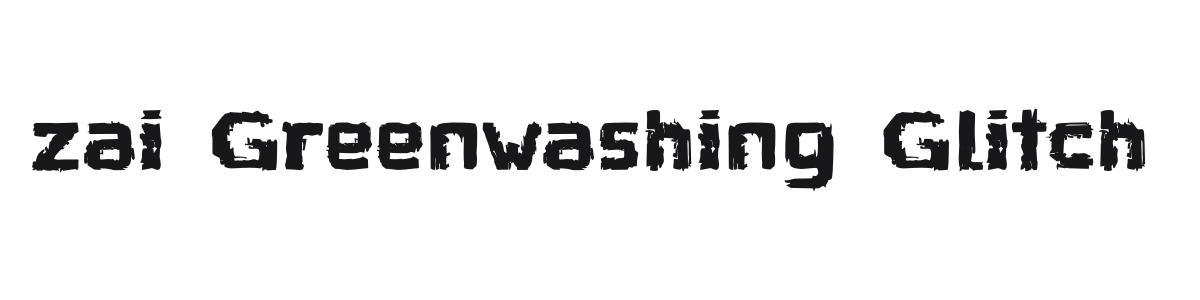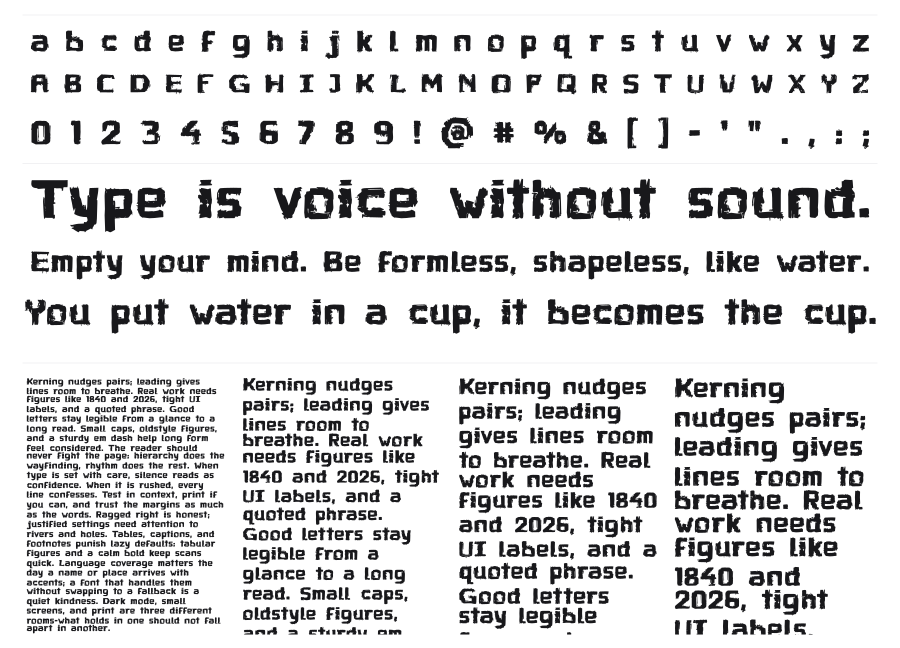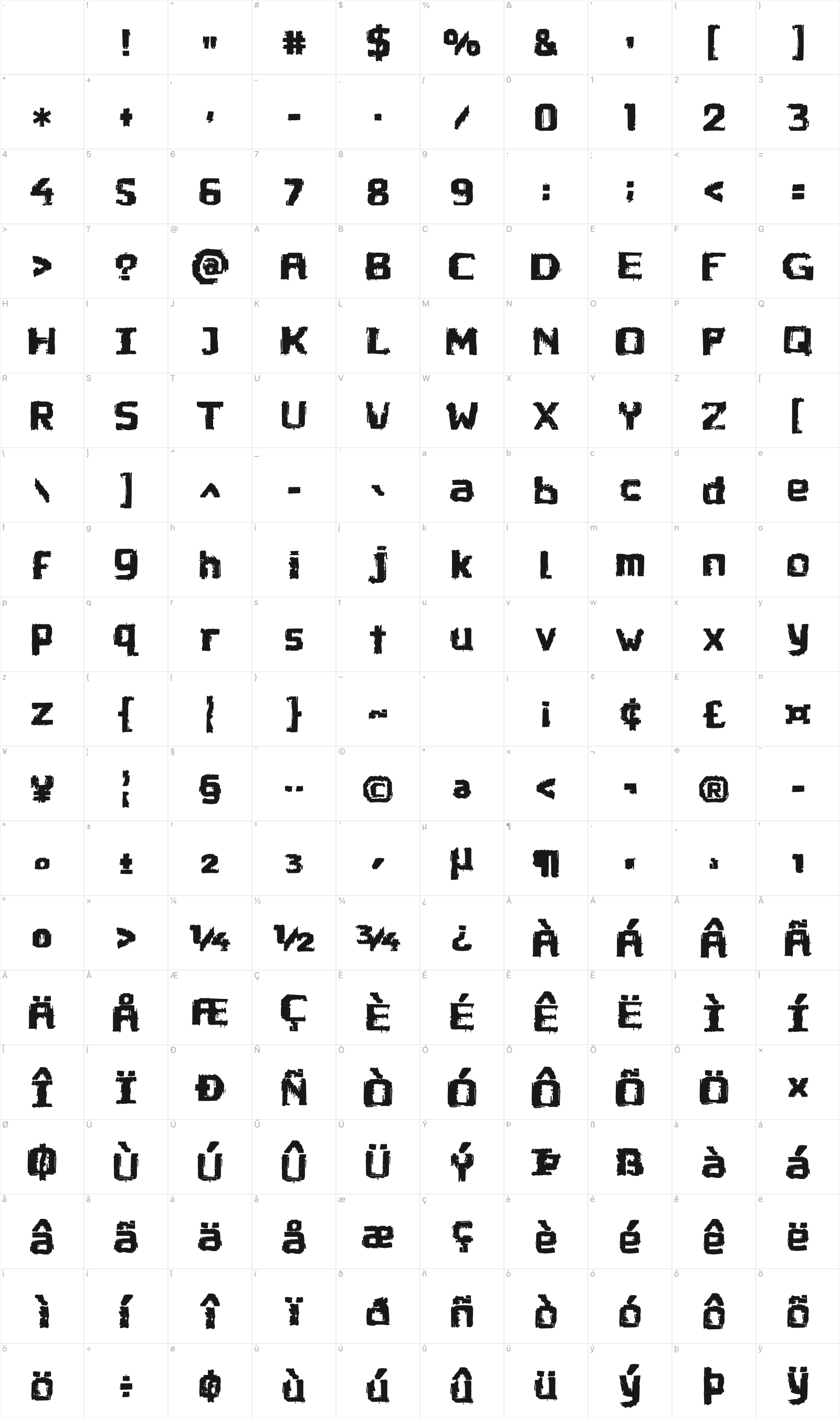
zai Greenwashing Glitch
by Tomasz Skowroński
zai Greenwashing Glitch is a bold distressed display font with a deliberately fractured, eroded texture applied to every character. The heavy square construction feels like decayed stencil lettering or corrupted digital output, reinforcing the political tension its name implies. It brings raw energy to protest posters, album artwork, and streetwear graphics.